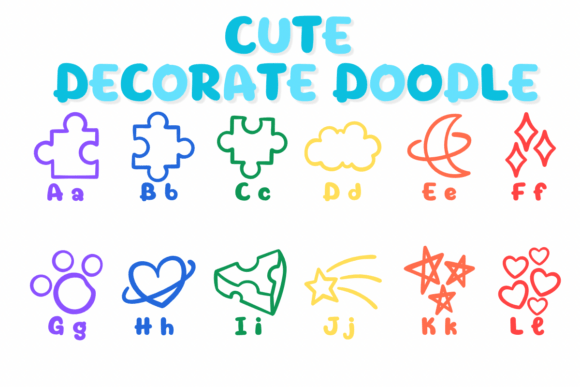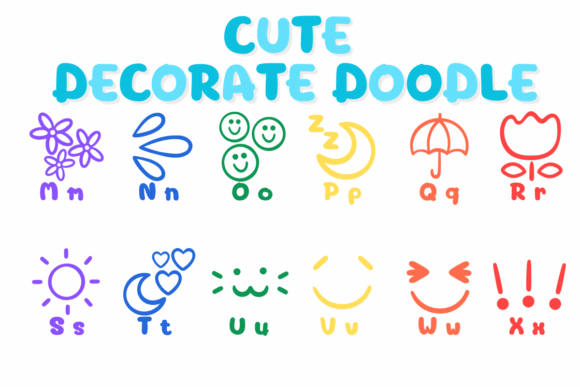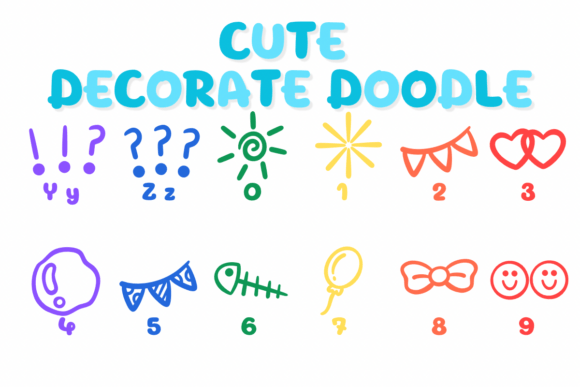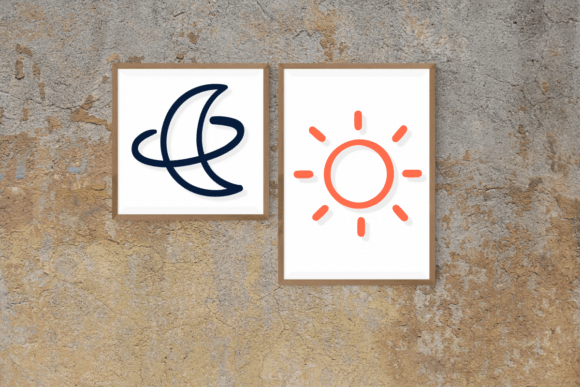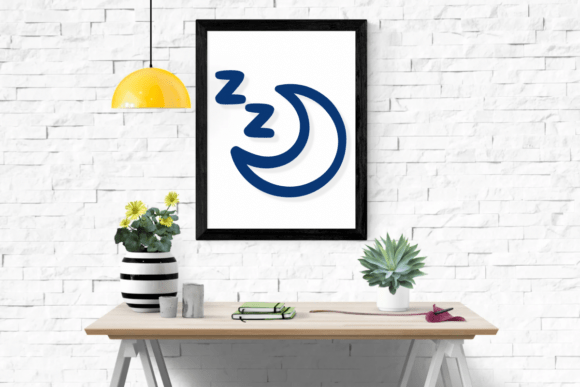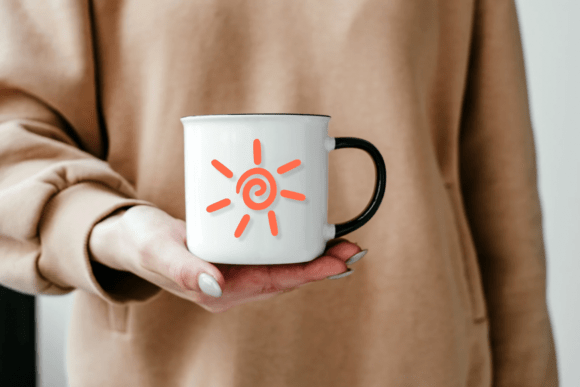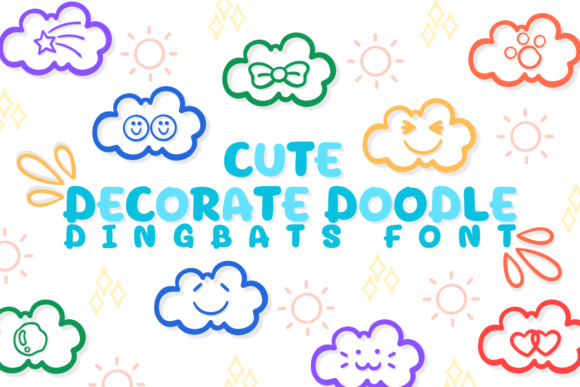
Cute Decorate Doodle Font: Elevate Your Creative Projects with a Playful Touch
Are you a designer, crafter, or DIY enthusiast looking for a unique and playful font to add a personal touch to your creative projects? Look no further than the Cute Decorate Doodle font! This charming dingbats font is specifically designed with a cute theme, making it perfect for a wide range of applications, from wedding invitations and crafts to decorations, logos, and more.
What is Cute Decorate Doodle Font?
Cute Decorate Doodle is a dingbats font that features a collection of adorable doodles and illustrations, including cute animals, flowers, hearts, and other whimsical designs. This font is not just a set of characters; it’s a creative tool that allows you to add a playful and imaginative touch to your projects. With Cute Decorate Doodle, you can easily create unique and eye-catching designs that are sure to delight your audience.
Uses of Cute Decorate Doodle Font
The versatility of Cute Decorate Doodle font makes it an excellent choice for various creative projects, including:
• Wedding Invitations: Add a personal touch to your wedding invitations with cute doodles and illustrations that reflect your special day.
• DIY and Crafts: Use Cute Decorate Doodle font to create unique and personalized crafts, such as handmade cards, gift tags, and decorations.
• Decorations: Add a playful touch to your party decorations, garlands, and banners with this delightful font.
• Logos and Branding: Use Cute Decorate Doodle font to create a unique and memorable logo for your business or brand.
• Social Media Graphics: Add a creative touch to your social media graphics, such as Instagram posts, Facebook covers, and Twitter headers.
Benefits of Using Cute Decorate Doodle Font
Here are some benefits of using Cute Decorate Doodle font in your creative projects:
• Unique and Playful Designs: Cute Decorate Doodle font offers a wide range of unique and playful designs that will add a personal touch to your projects.
• Easily Customizable: You can easily customize the font to fit your project’s style and theme.
• Scalable: The font is scalable, making it perfect for various applications, from small crafts to large banners.
• Easy to Use: Cute Decorate Doodle font is easy to use, even for those who are not experienced designers.
Tips for Using Cute Decorate Doodle Font
Here are some tips for using Cute Decorate Doodle font effectively in your creative projects:
• Mix and Match: Experiment with different doodles and illustrations to create a unique design.
• Combine with Other Fonts: Combine Cute Decorate Doodle font with other fonts to create a visually appealing design.
• Use in Moderation: Use the font in moderation to avoid overwhelming your design.
• Experiment with Colors: Experiment with different colors to add a pop of color to your design.
Cute Decorate Doodle font is a versatile and playful font that can elevate your creative projects to the next level. With its unique and whimsical designs, this font is perfect for designers, crafters, and DIY enthusiasts who want to add a personal touch to their projects. Whether you’re creating wedding invitations, crafts, decorations, or logos, Cute Decorate Doodle font is an excellent choice. So, get creative and have fun with Cute Decorate Doodle font!